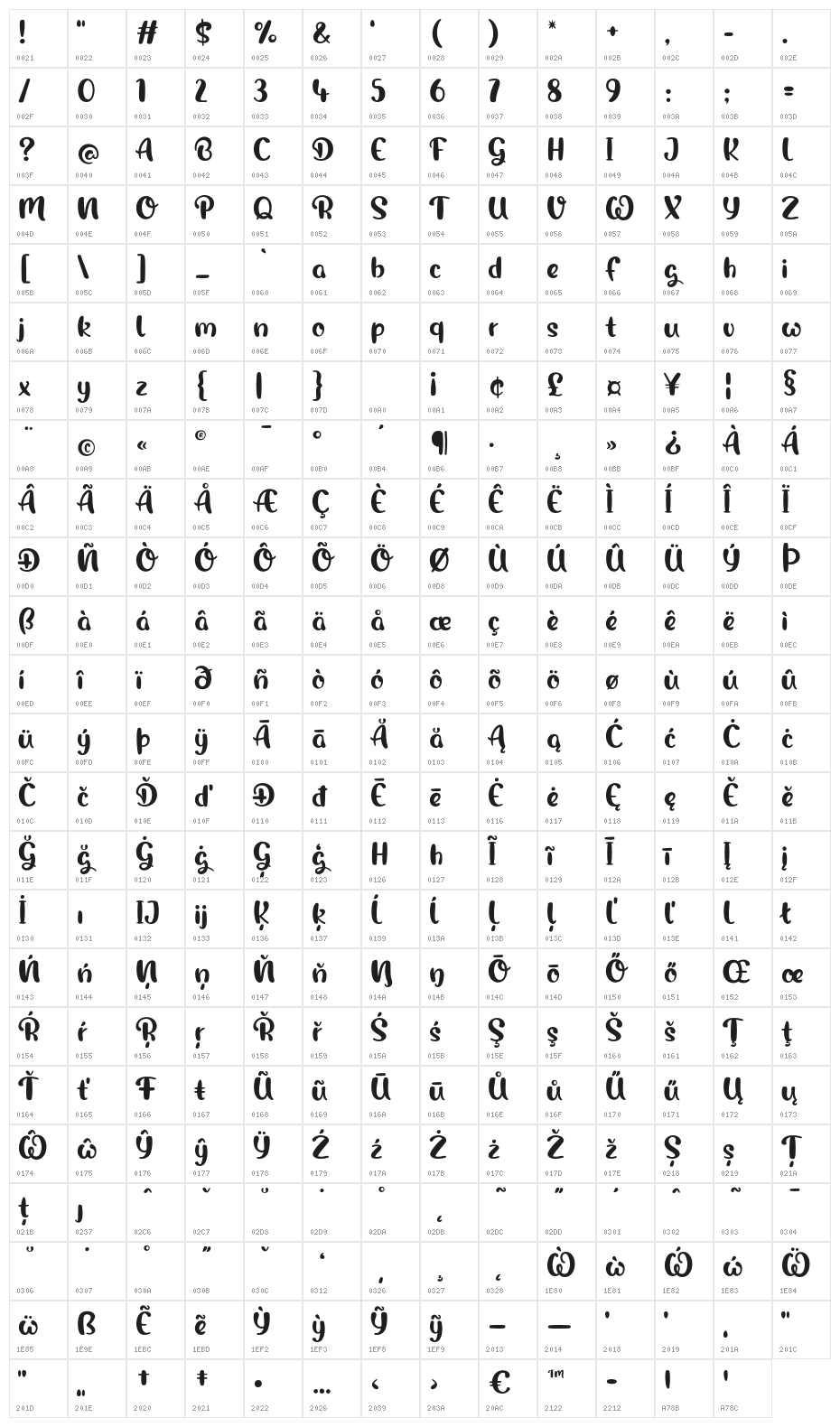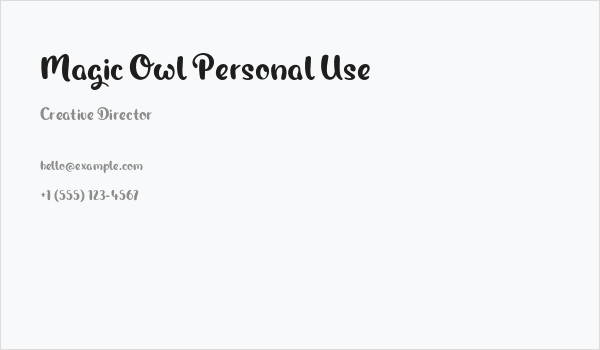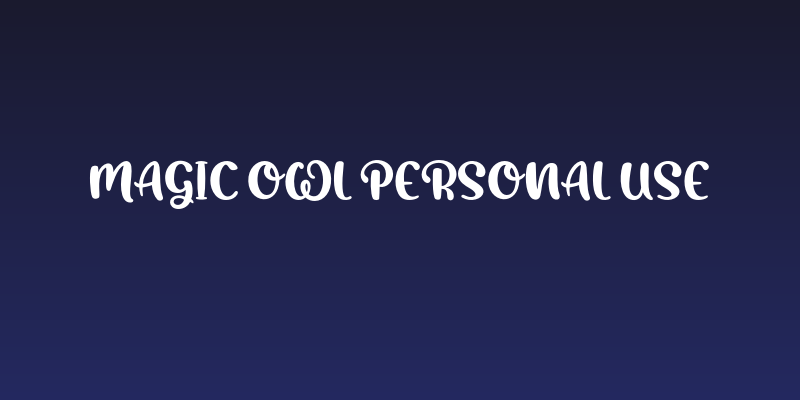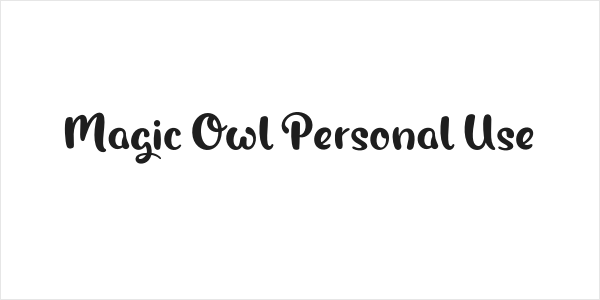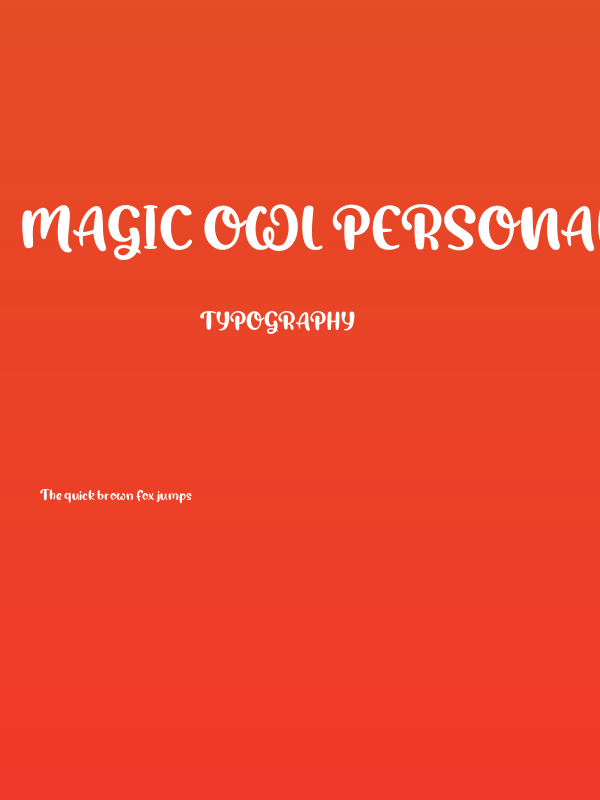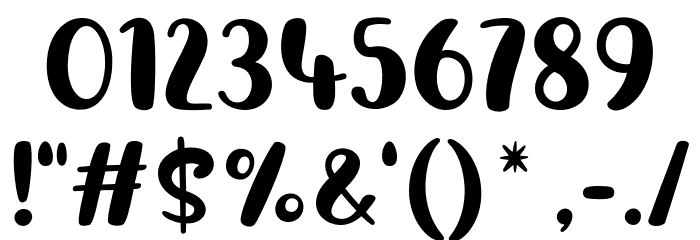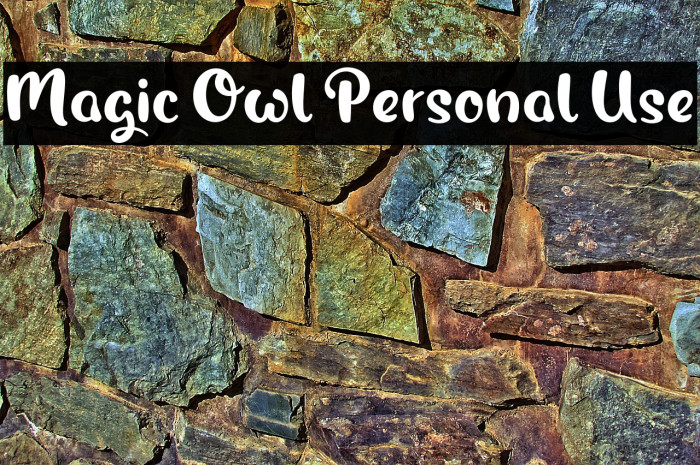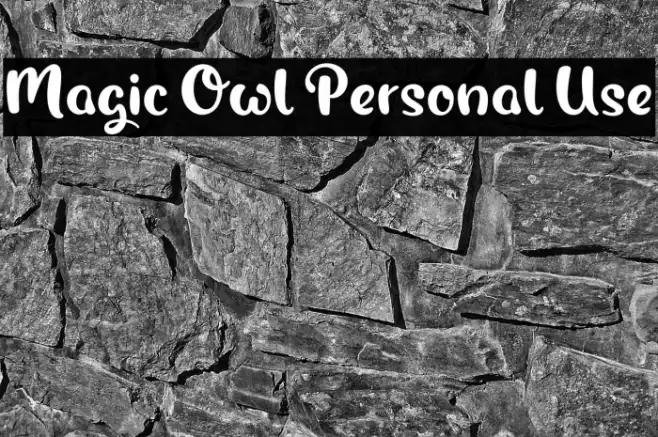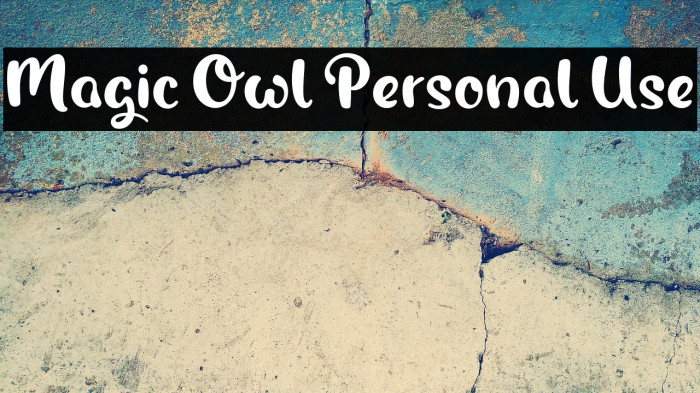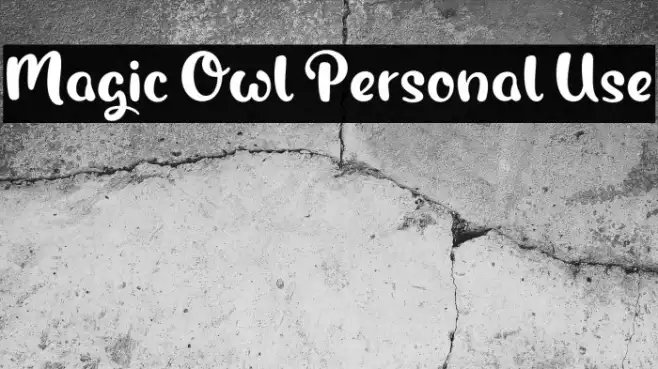
Magic Owl Personal Use Font
Magic Owl Personal Use Description
This font features a playful and whimsical style, characterized by its bold and rounded letterforms. The strokes are thick and consistent, giving it a strong presence on the page. The letters have a hand-drawn quality, with slight variations that add to its charm. The uppercase and lowercase letters maintain a cohesive look, while the numerals and special characters complement the overall design. This font is ideal for projects that require a fun and lively touch, making it suitable for children's books, playful branding, or creative posters.
| Overall Style | Playful, Whimsical, Hand-drawn |
| Proposed Projects | Children's books, playful branding, creative posters, invitations, and greeting cards. |